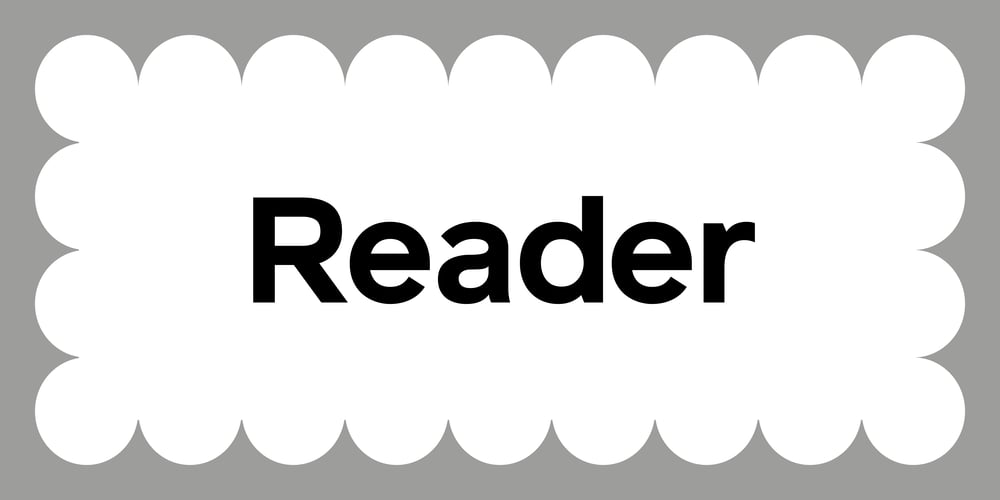
Reader Font Family was designed by Colophon Foundry and published by Colophon Foundry. Reader contains 14 styles and family package options. Reader is a neo–grotesque typeface initially created in a Medium weight, and now re-cut into a base family of six weights with an additional seventh in the form of Reader Black. The typeface itself is based on a reference from an RSPB letter dating 1972. The name of the typeface from the original reference of whom the letter is addressed to — Reader.The original typeface, which is unknown, was a mono-spaced, rounded face with geometric proportions that pushed to the very boundaries of their fixed-width.The construction and geometric properties from this type were taken into the sketching process of Reader but without the monospaced grid. The proportions of the typeface were rebalanced to give it a neo-grotesque, 1960’s swiss style feel, but also reference the symmetry and geometry of the Bauhaus. Weight has also been added to the face, giving a subtle stress to the characters and allowing easy readability. The ends of every stem, originally rounded, have been cut off, replaced with horizontal and angled edges to allow for evenly spaced typesetting.